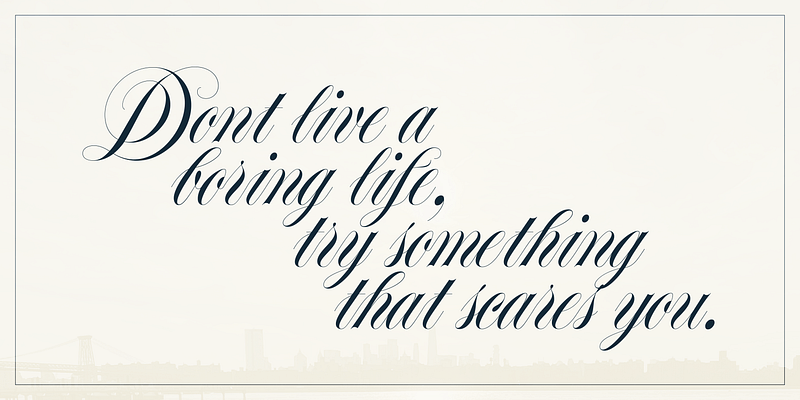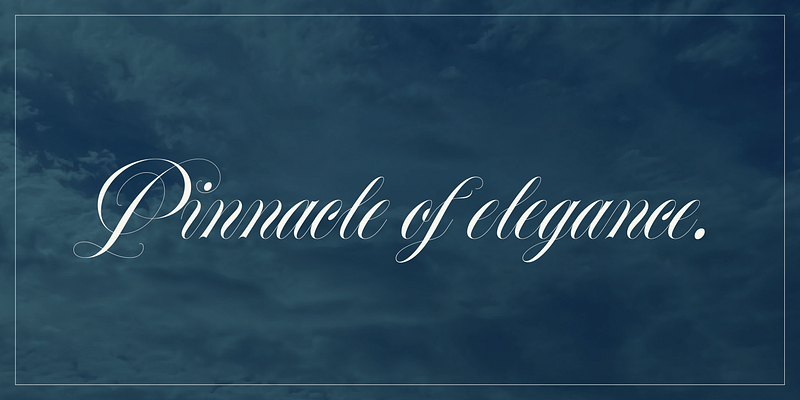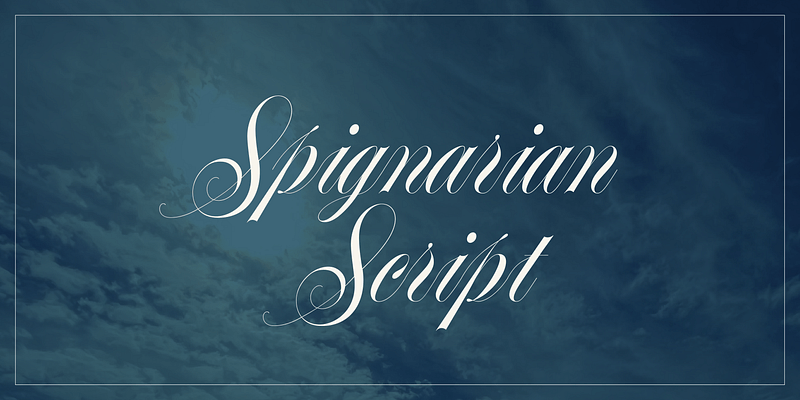
Di Spigna’s self-titled Spignarian Script is the pinnacle of elegance. Penned by hand and refined over countless adjustments, Spignarian Script is a display face with true hairlines and smooth transitions from thick to thin, it works at sizes large enough to show off its detail.